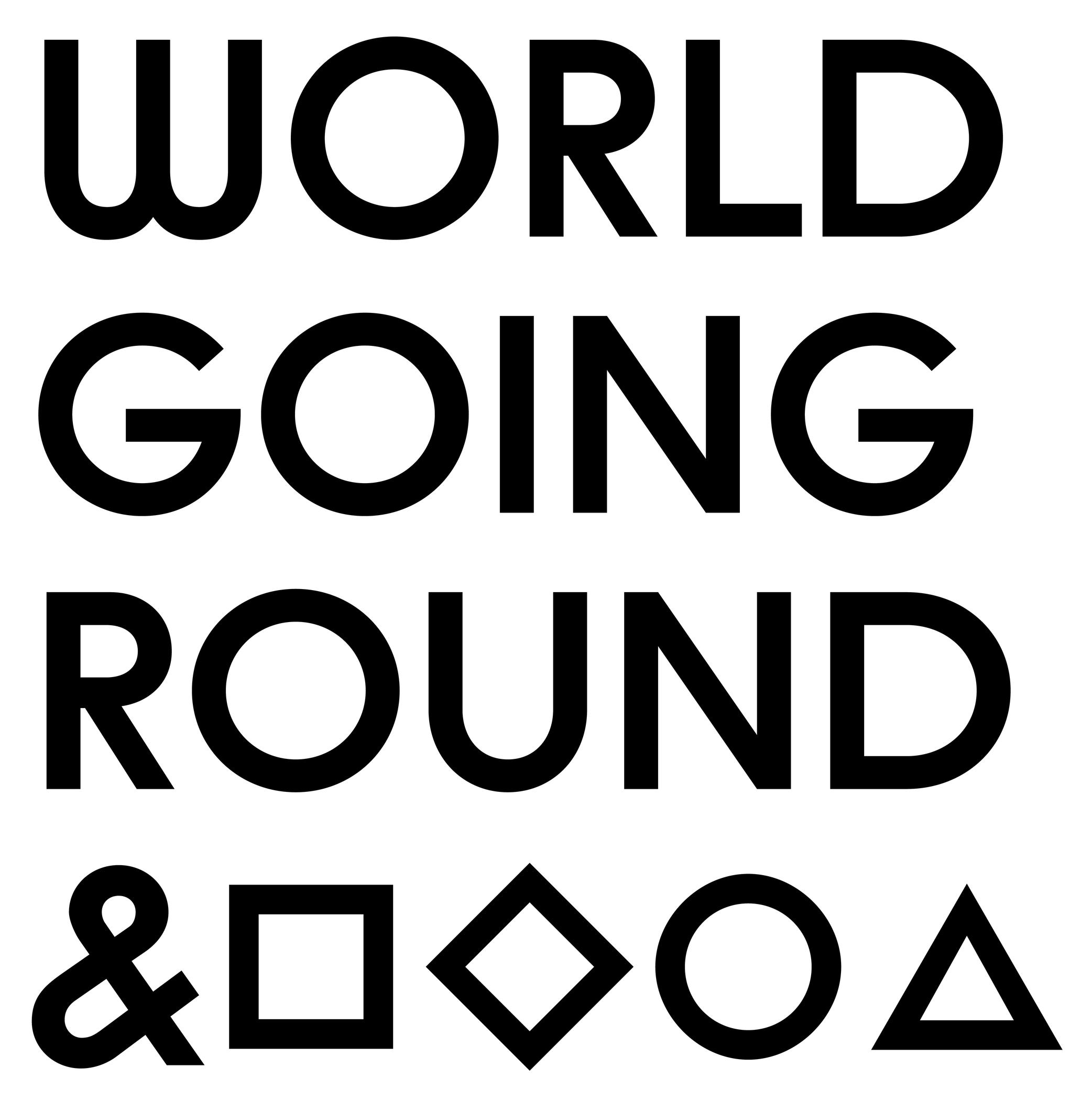
Geometric
A typeface with a geometric style has shapes designed in a way that follows the logic of geometry (straight, round, square, etc.).
But our human eyes are organic (as opposed to artificial), we need to use optical tweaks and adjustments in addition to the shapes drawn out of geometric tools to make the letterforms look geometric.